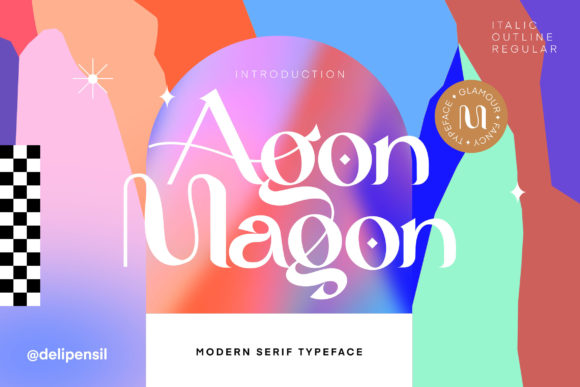
The Agon Magon Font: A Fresh and Fun Serif Delight
The Agon Magon font is a fresh and fun serif font that’s incredibly versatile, making it perfect for a wide range of design projects. In this article, I’ll share my honest review of the font, provide a practical guide on how to use it, and explore similar fonts and alternatives.
My Honest Review of Agon Magon
- ✨ **Unique and quirky style**: Agon Magon has a distinctive charm that sets it apart from other serif fonts.
- ✅ **Highly legible**: The font is clear and easy to read, even at small sizes.
- 💫 **Versatile**: Agon Magon works beautifully for both digital and print projects, from social media graphics to posters and flyers.
- 🎨 **Customizable**: The font comes with a range of OpenType features, glyphs, and stylistic alternates that allow you to get creative and experiment with different styles.
While Agon Magon is an amazing font, there are a few things to keep in mind:
- 🤔 **Limited availability of certain characters**: Some special characters and glyphs might not be available, so be sure to check the font’s capabilities before using it for a project that requires specific characters.
- ⚠️ **Not suitable for very small text sizes**: While Agon Magon is generally legible, it may not be the best choice for very small text sizes, such as body text or captions.
The Story Behind Agon Magon
Agon Magon was designed by a team of typographers who wanted to create a font that was both fun and sophisticated. Inspired by classic serif fonts and modern design trends, Agon Magon was crafted to be a versatile and highly legible font that’s perfect for a wide range of design projects.
Q: What is Agon Magon?
Agon Magon is a fresh and fun serif font that’s designed for creative projects.